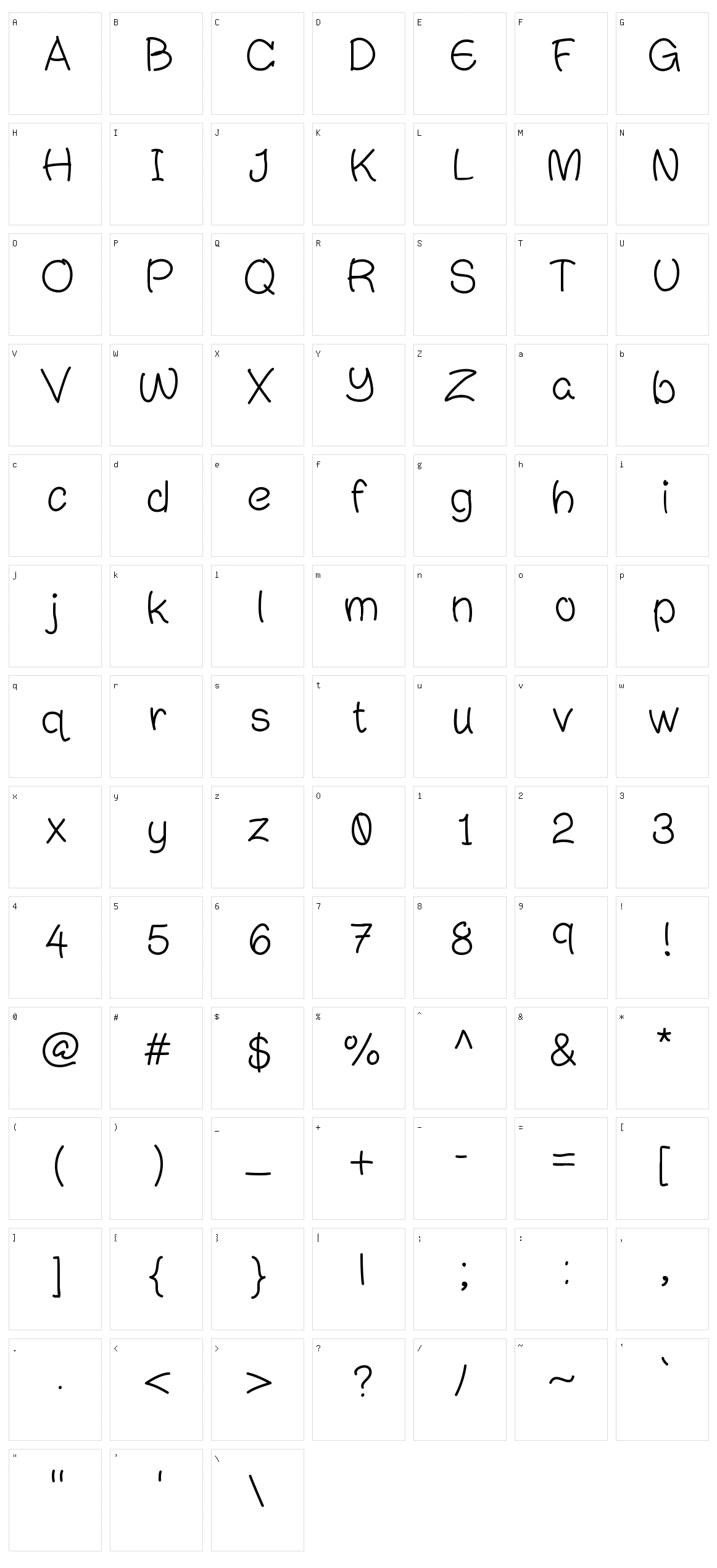
The free font Jimmys is carefully designed by JuRaCa, showcasing a thoughtful balance of creativity and usability and falls under the Script font style. When you download the ZIP file, it contains only 53.47 KB of font files, making it lightweight and quick to download. Please review the license details below to understand permitted usage and distribution rights. If license information is not available, we recommend using this font for personal projects only or contacting the author directly for commercial usage permissions.